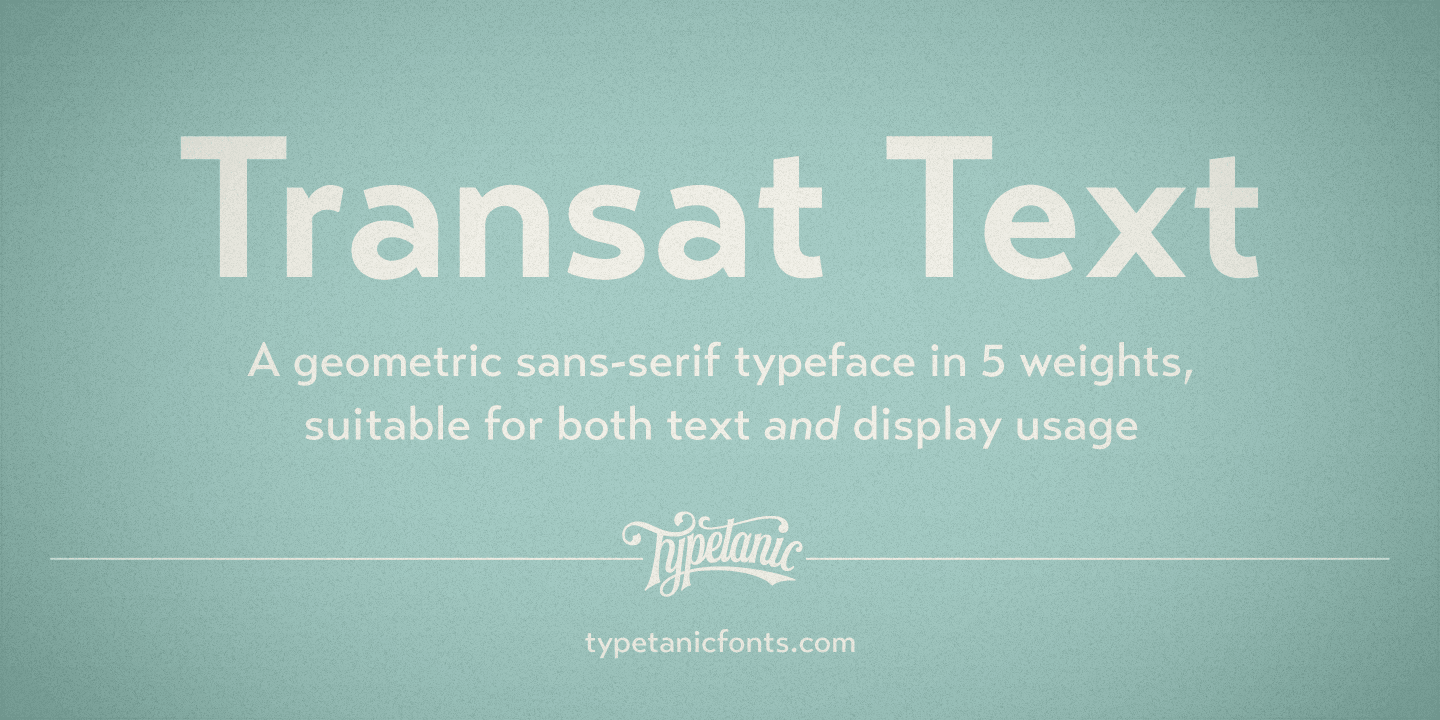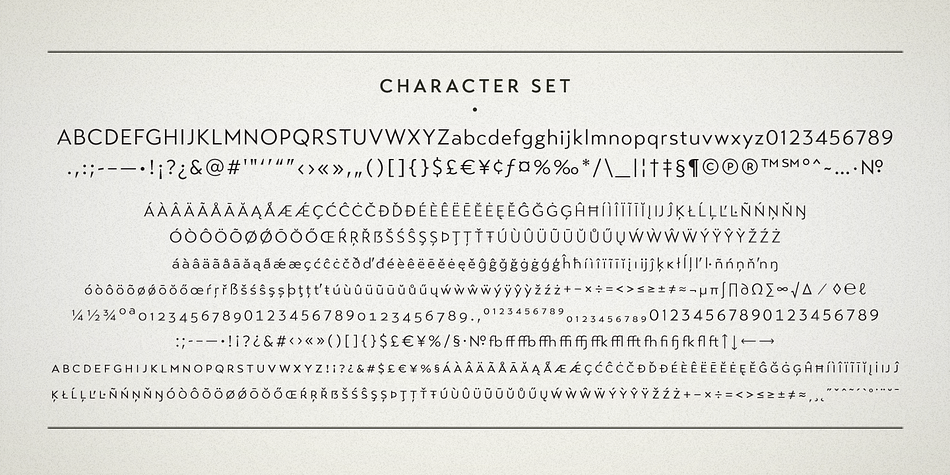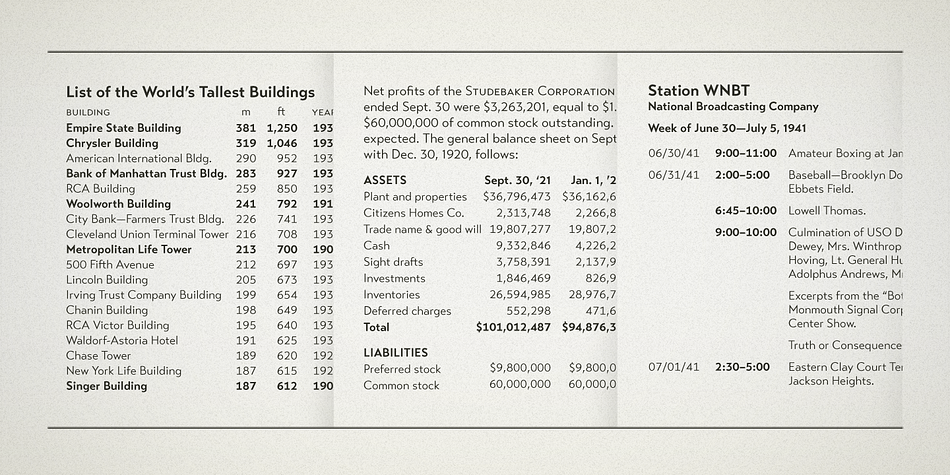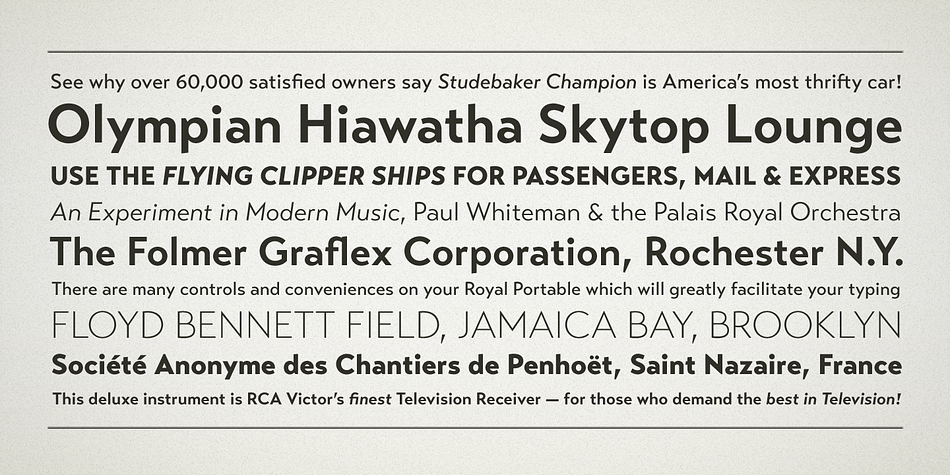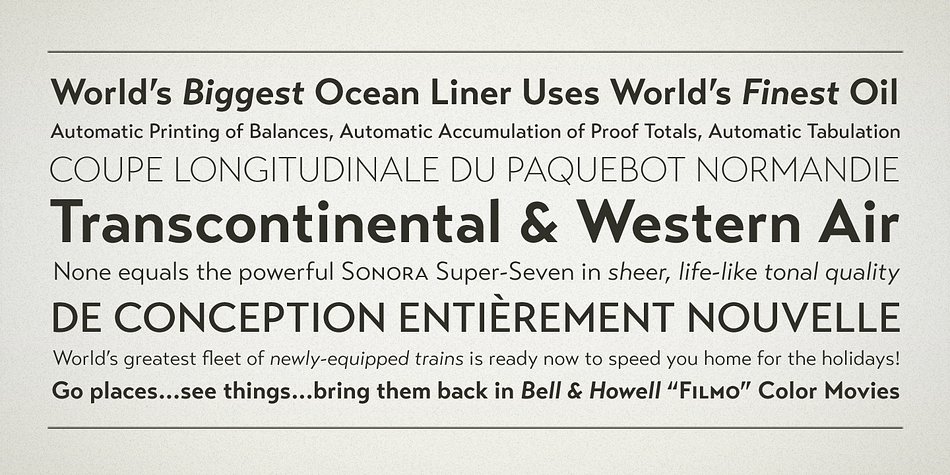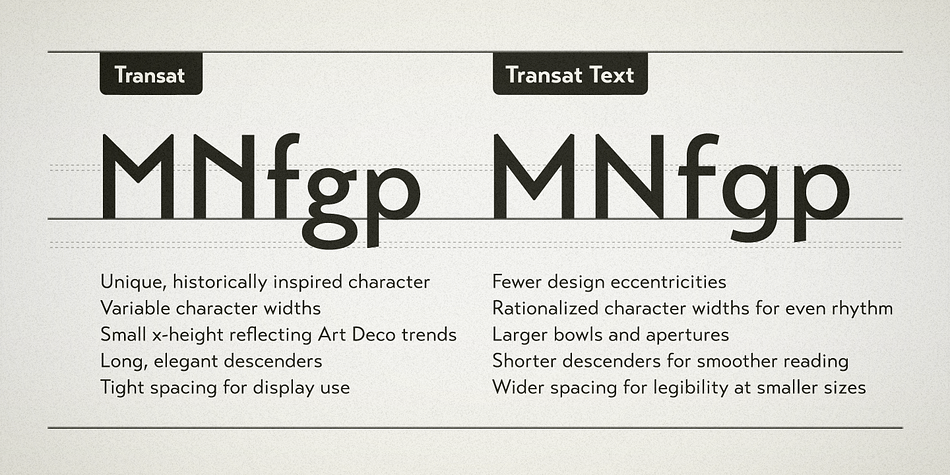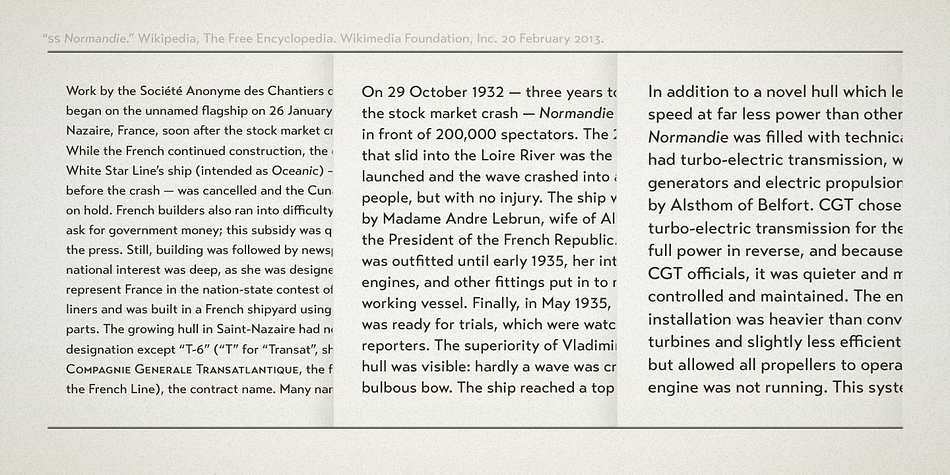
Transat Text is a sans serif font family. This typeface has ten styles and was published by Typetanic Fonts.
Transat Text is a geometric sans serif typeface, and is the more rational sibling to the unabashedly Art Deco “Transat”. Transat Text has a slightly taller x-height than its counterpart, making it easier to read at small sizes, but also performs admirably in larger display settings.
Transat Text includes many OpenType features, such as ligatures, small capitals, case sensitive forms, stylistic alternates, arbitrary fractions, and a full complement of proportional, tabular, and oldstyle figures.
The Transat Text family includes 5 weights plus optically-corrected obliques.